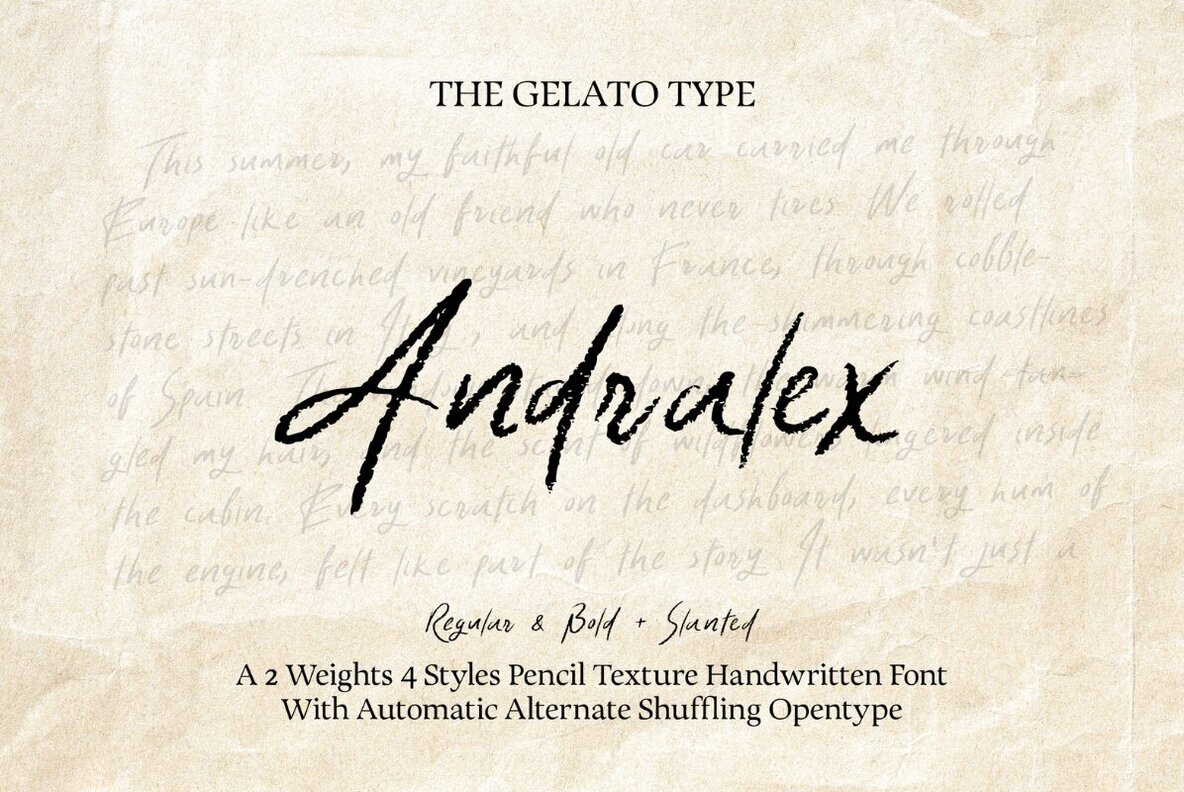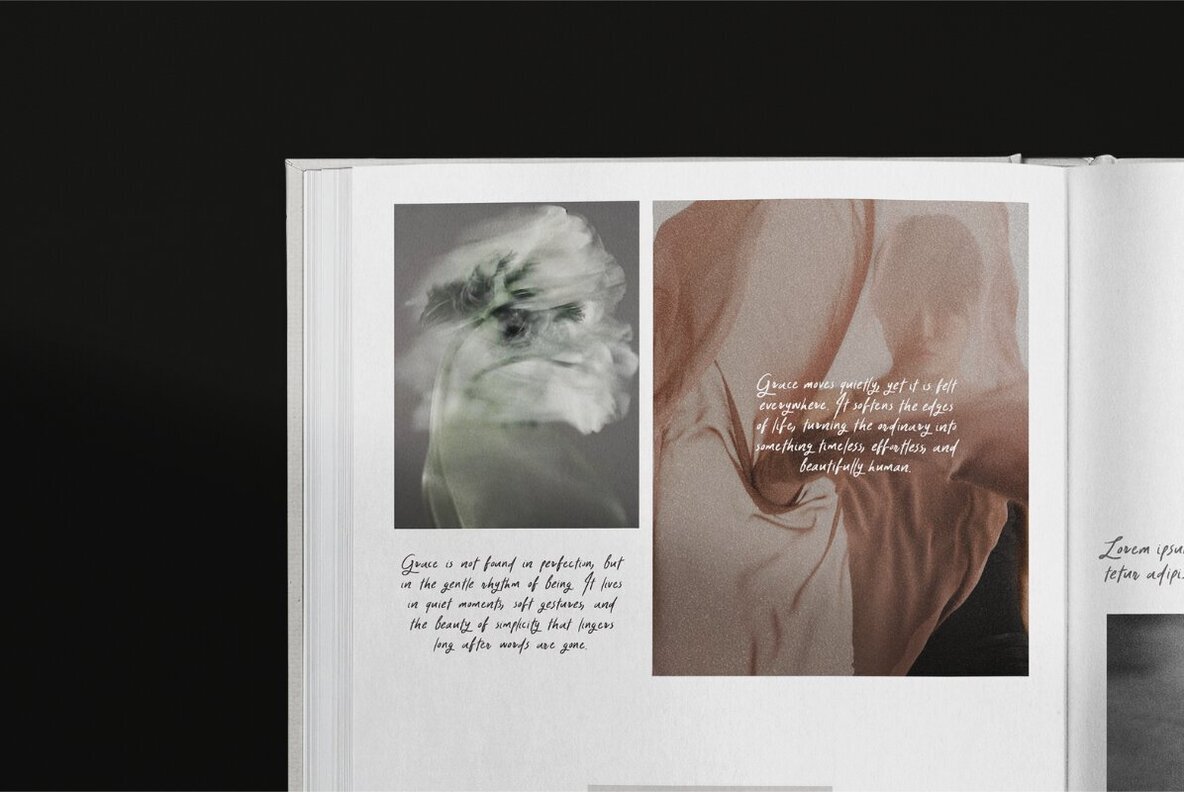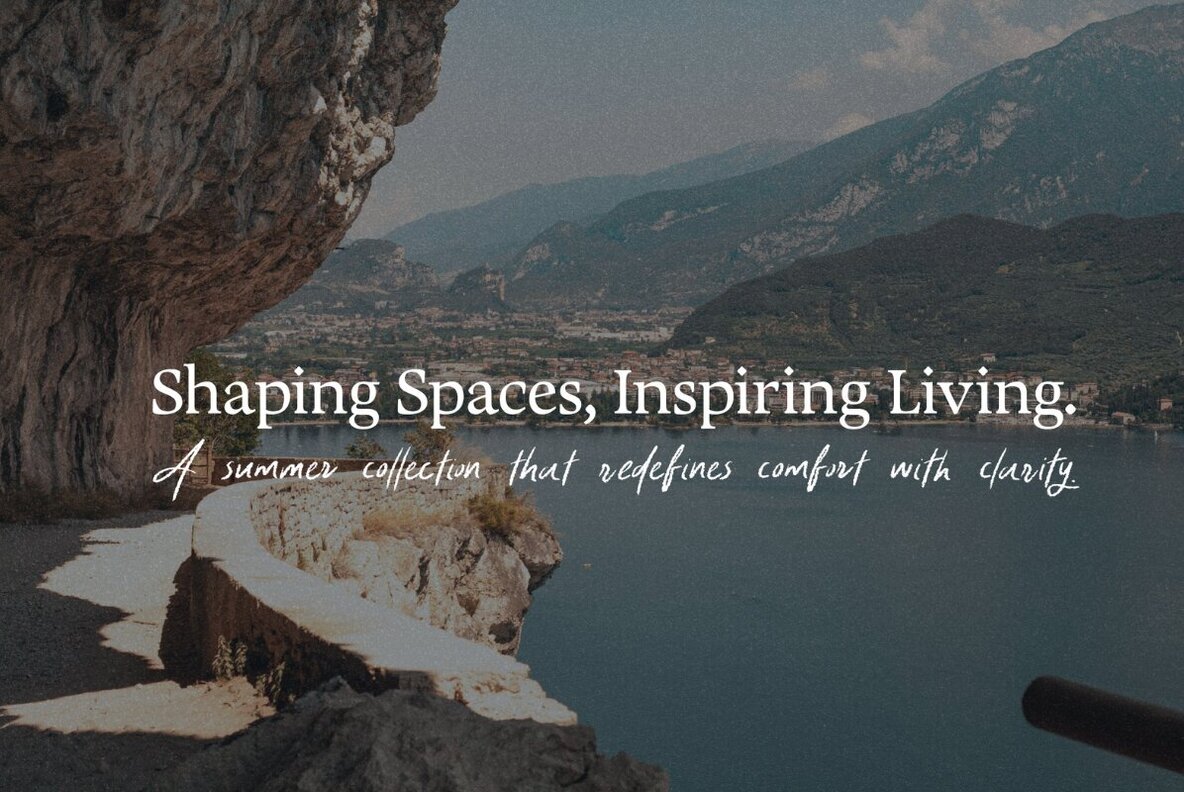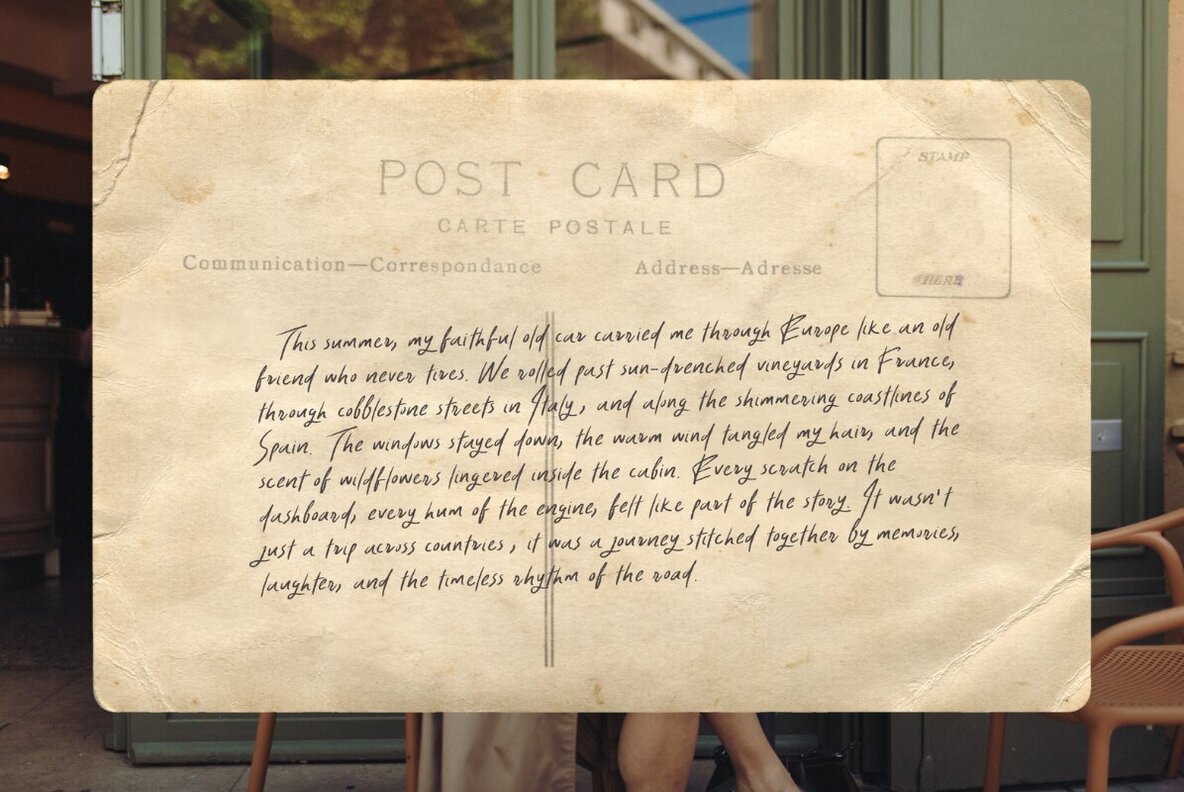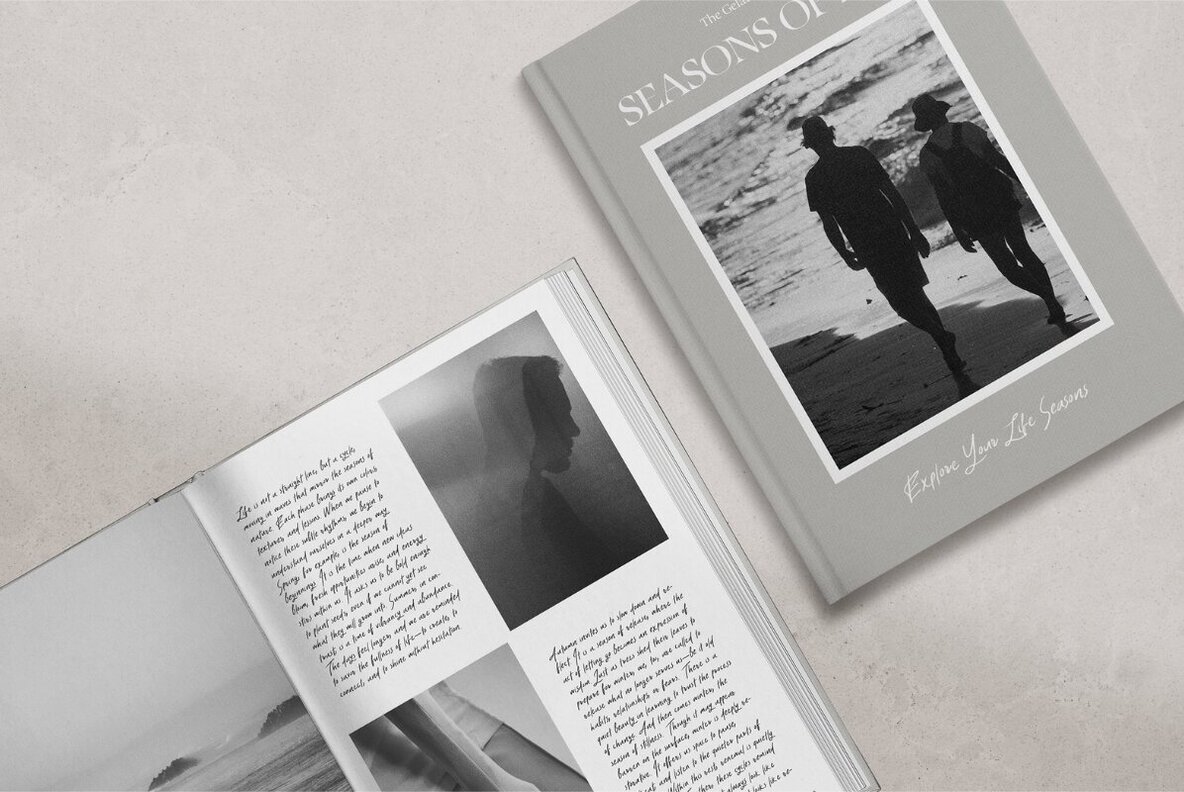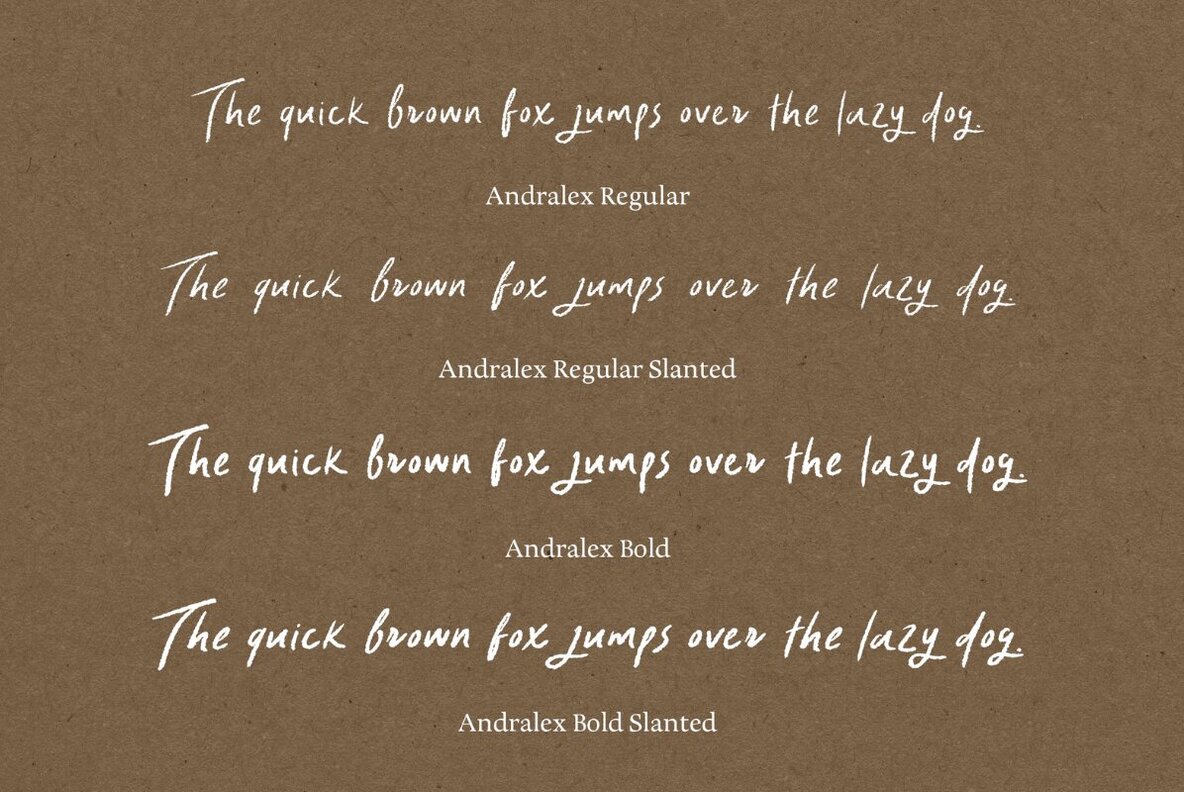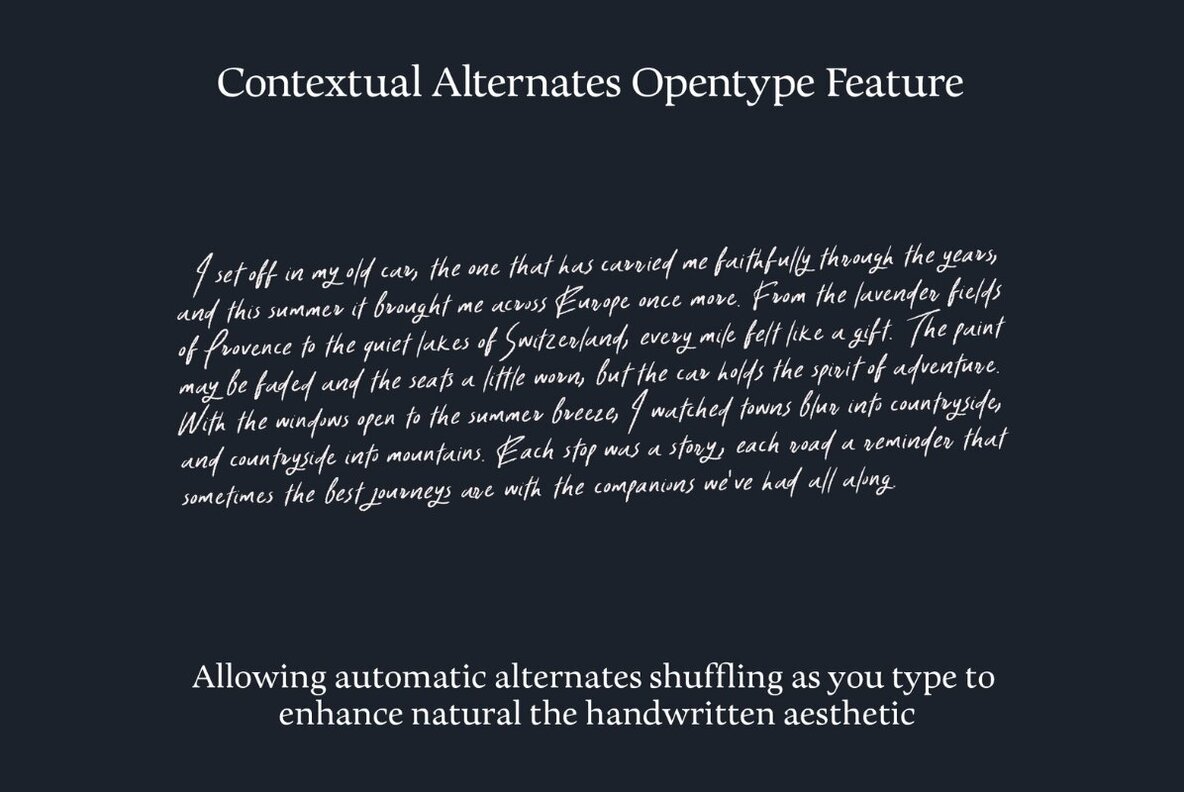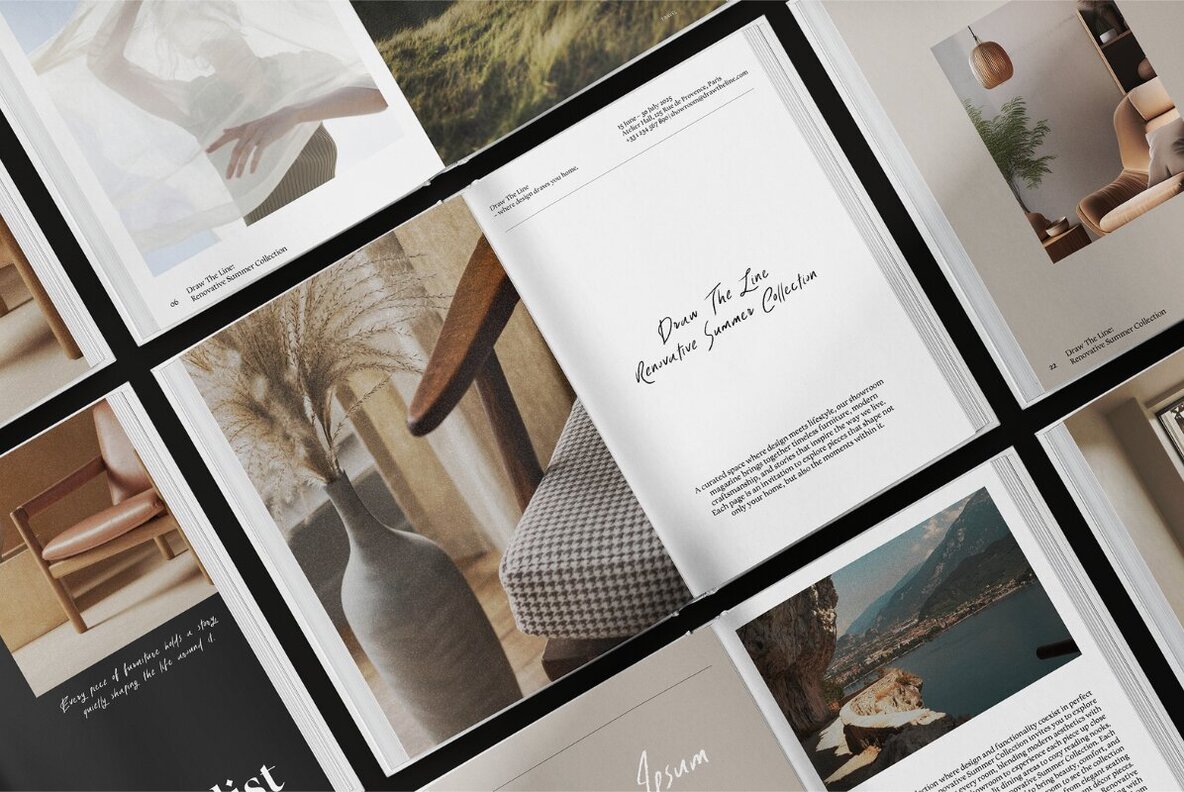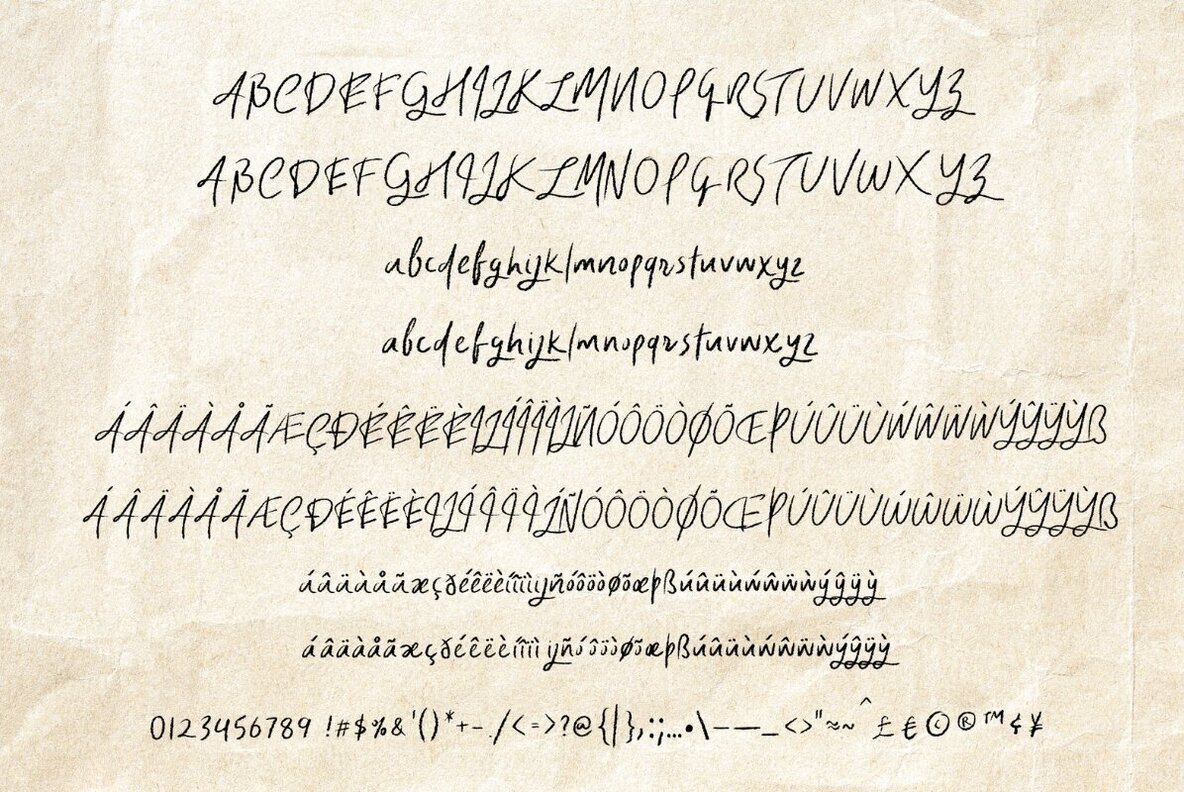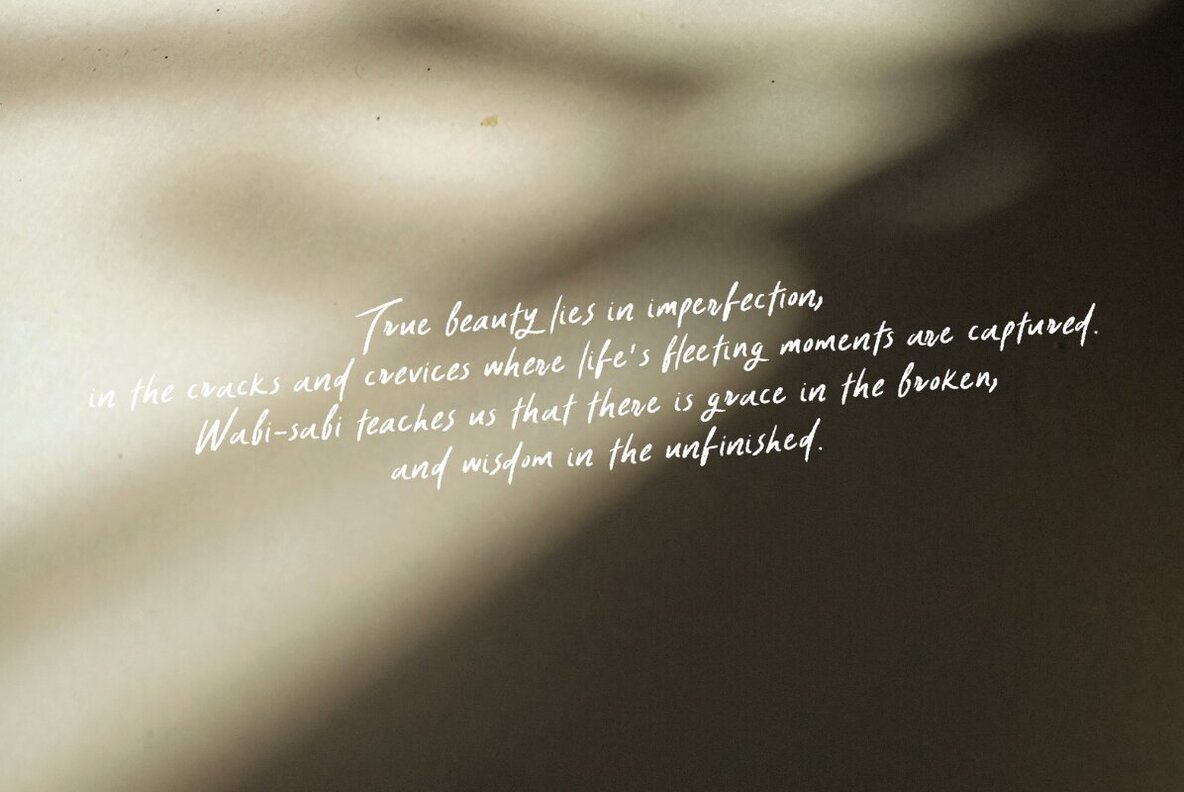
Andralex Font
Meet Andralex — a graceful handwritten font that marries the warmth of pencil textures with modern versatility. Featuring organic strokes and hand-crafted details, Andralex infuses your creative projects with authenticity and charm. This font is your ideal choice for designs that require a touch of natural elegance. From heartfelt notes and elegant invitations to branding and social media graphics, Andralex enhances your designs with a personal touch and refined appeal.Andralex: The Pencil-Textured Handwritten Font
Features of Andralex